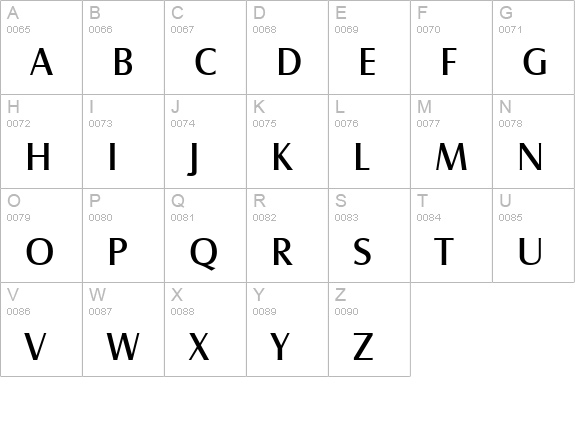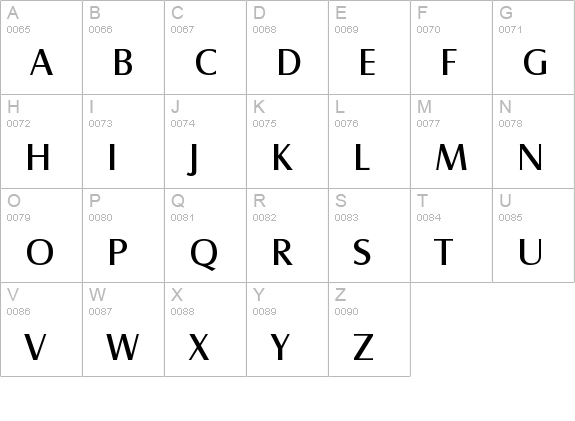
CastleT Font Details
Introducing CastleT font, a beautifully crafted typeface that exudes elegance and sophistication. With its intricate details and classic design, CastleT font is perfect for adding a touch of luxury to your projects. This versatile font can be used for various design purposes, from branding to invitations to editorial content. What makes CastleT font even more appealing is that it is available for free download at FontsMarket.com. Yes, you heard it right - you can easily access this stunning font without any cost. So why wait? Elevate your designs with CastleT font and make a statement with its timeless charm. Download it now and let your creativity shine!